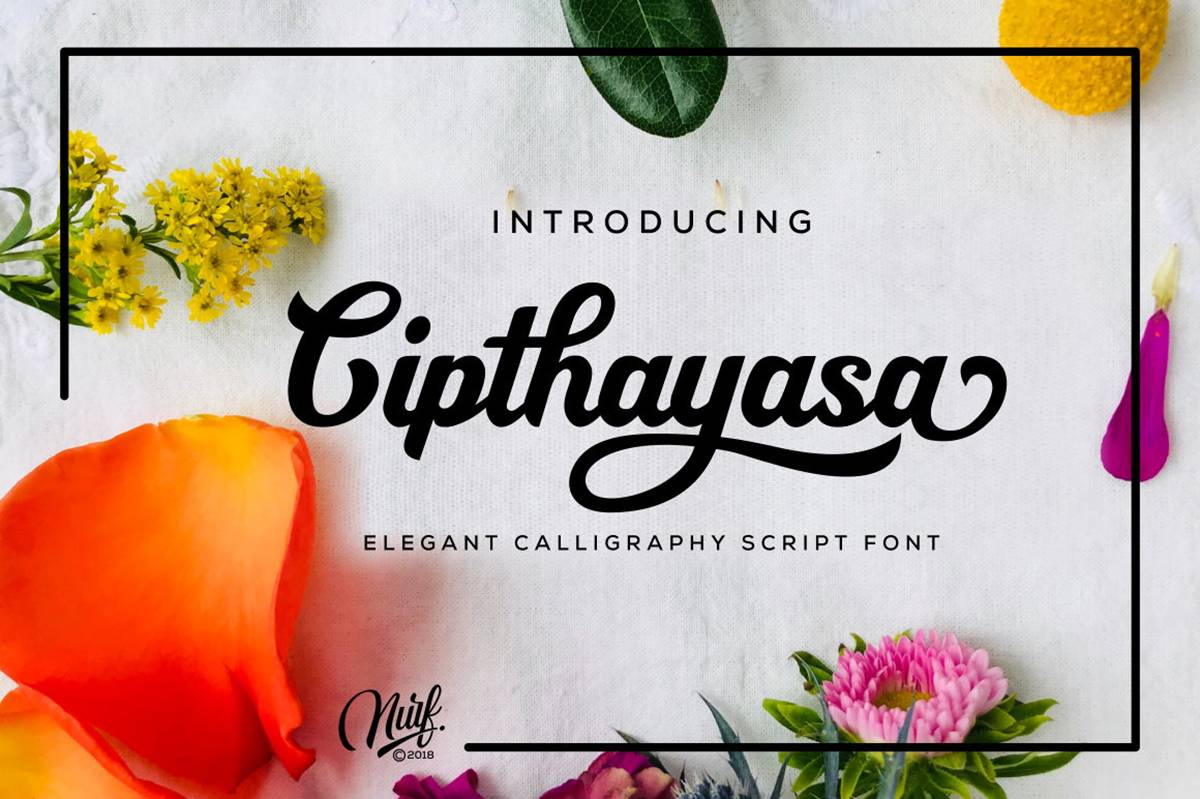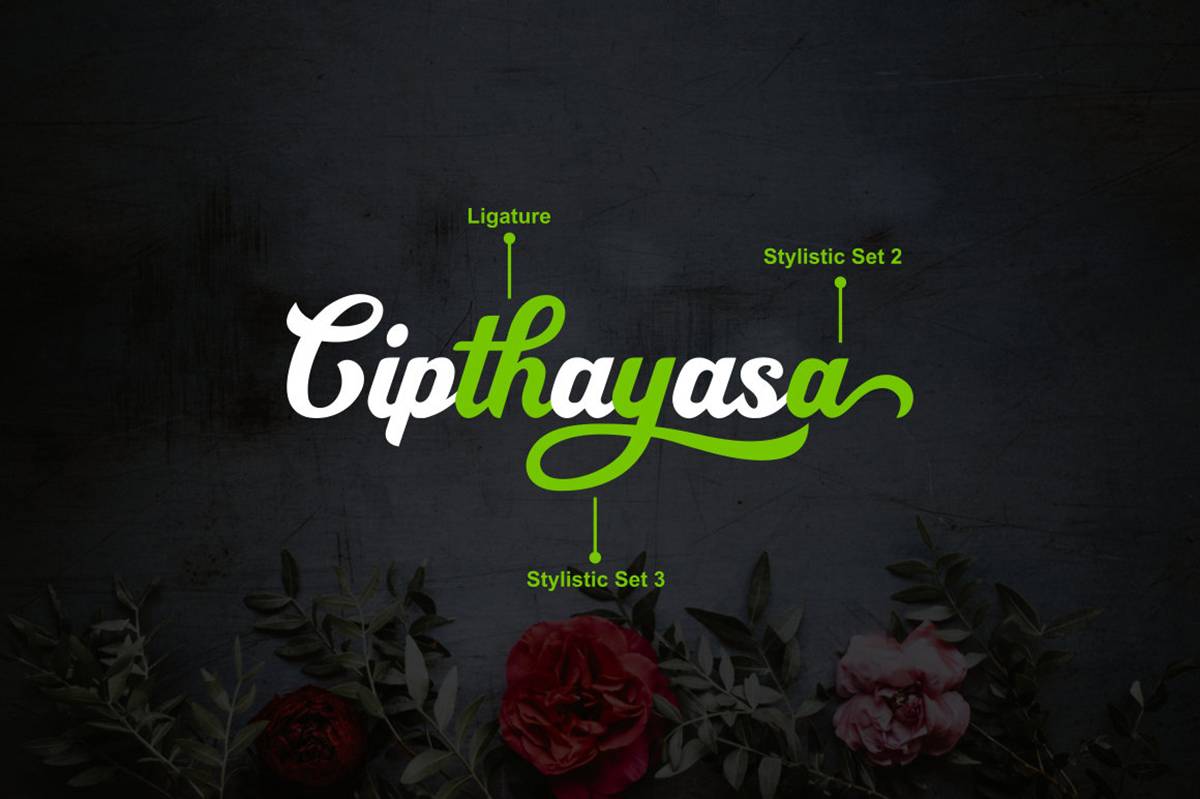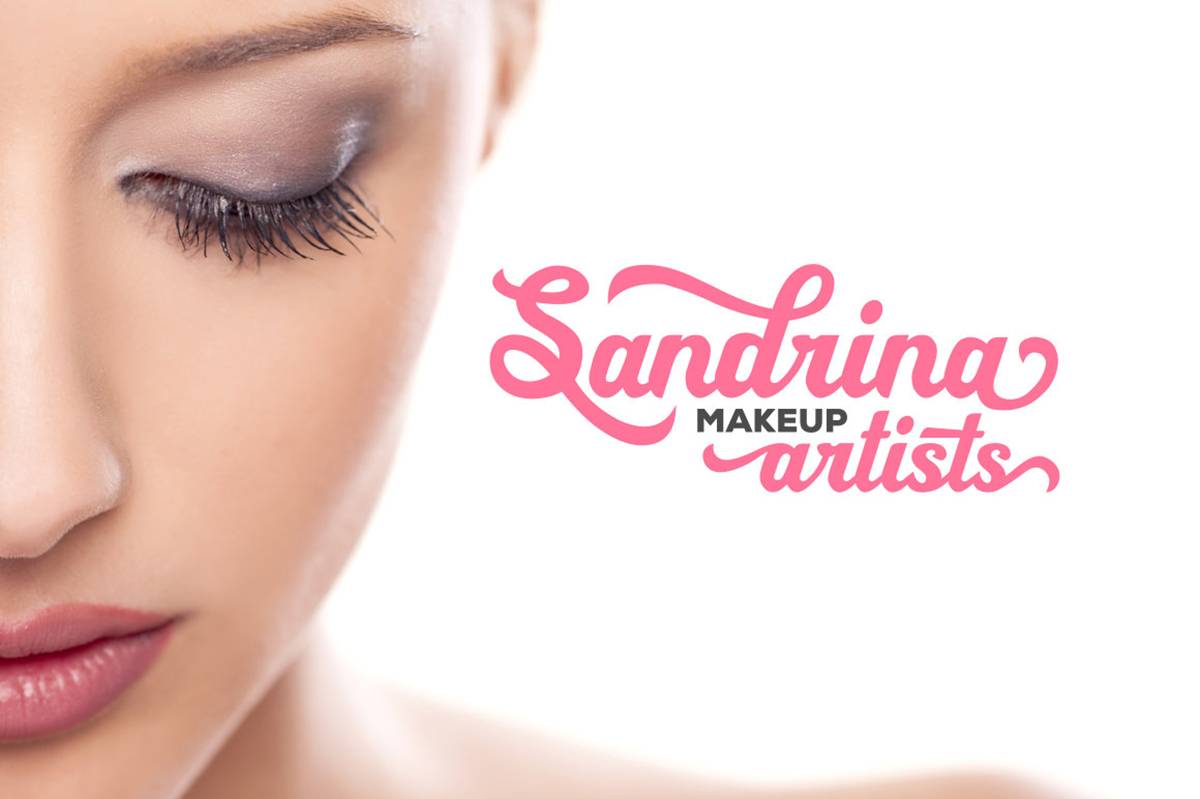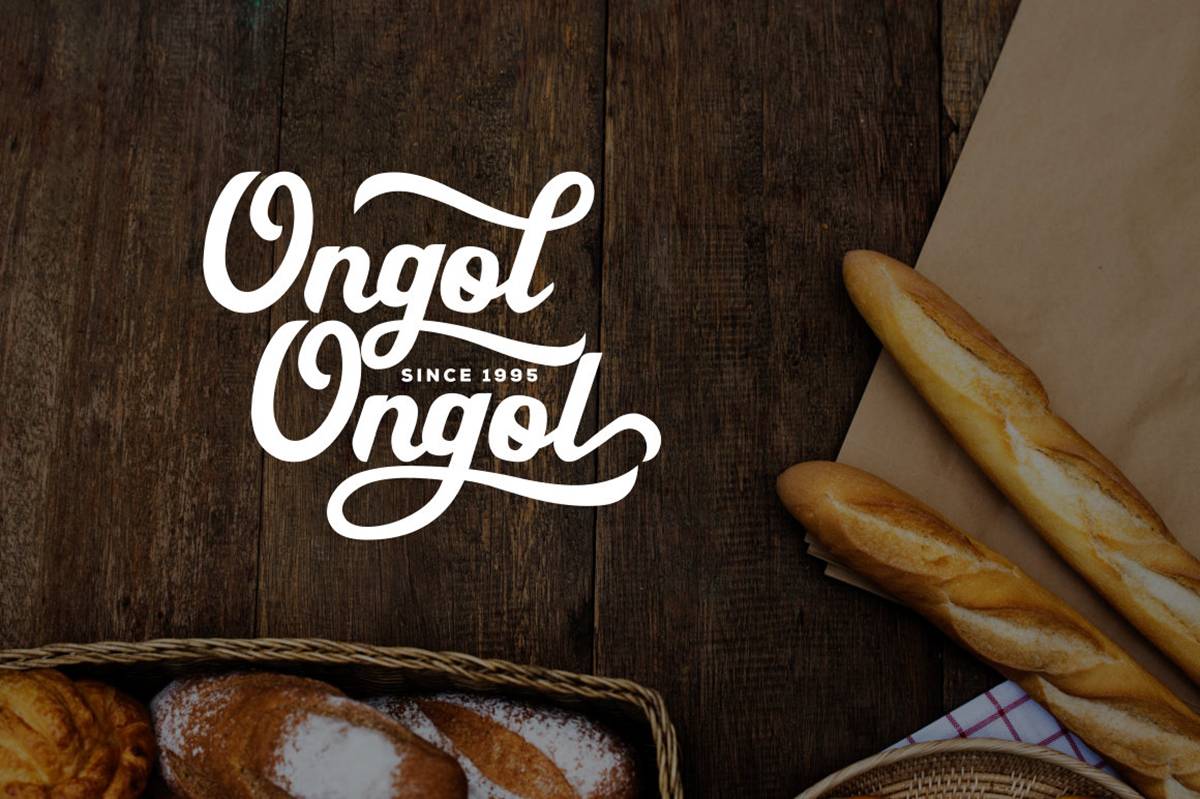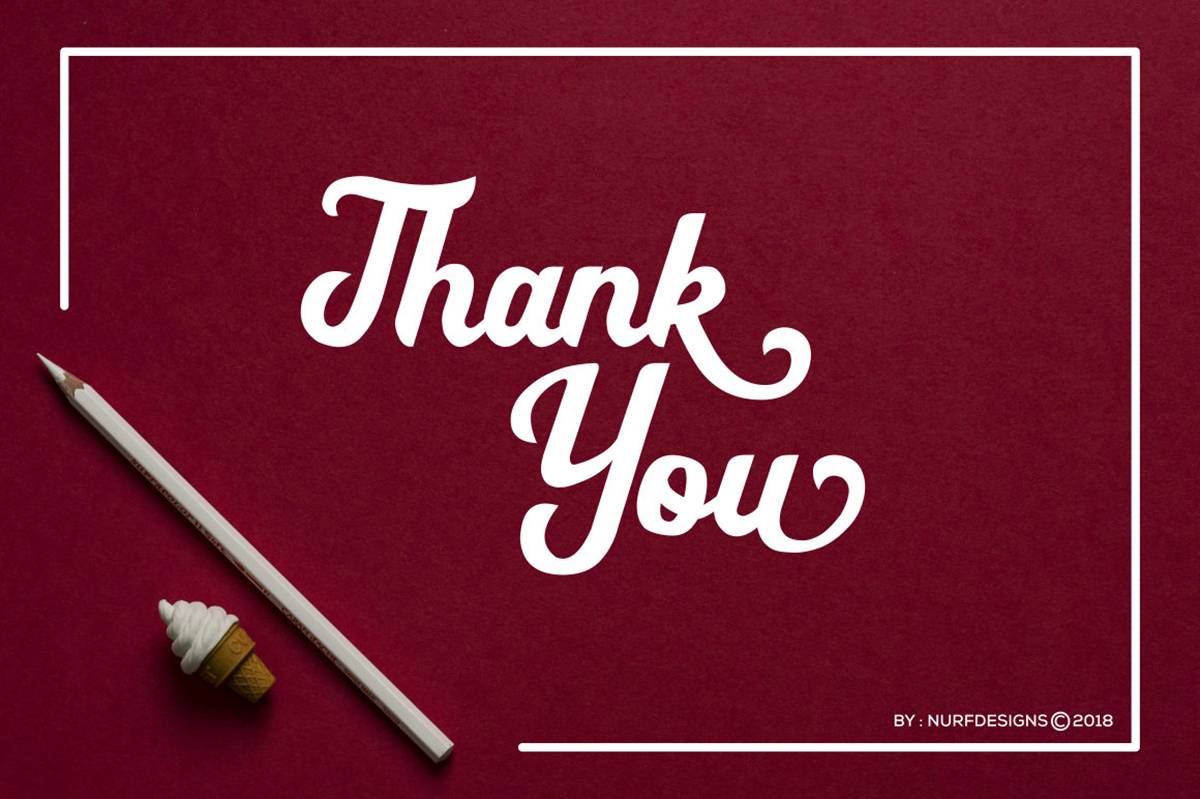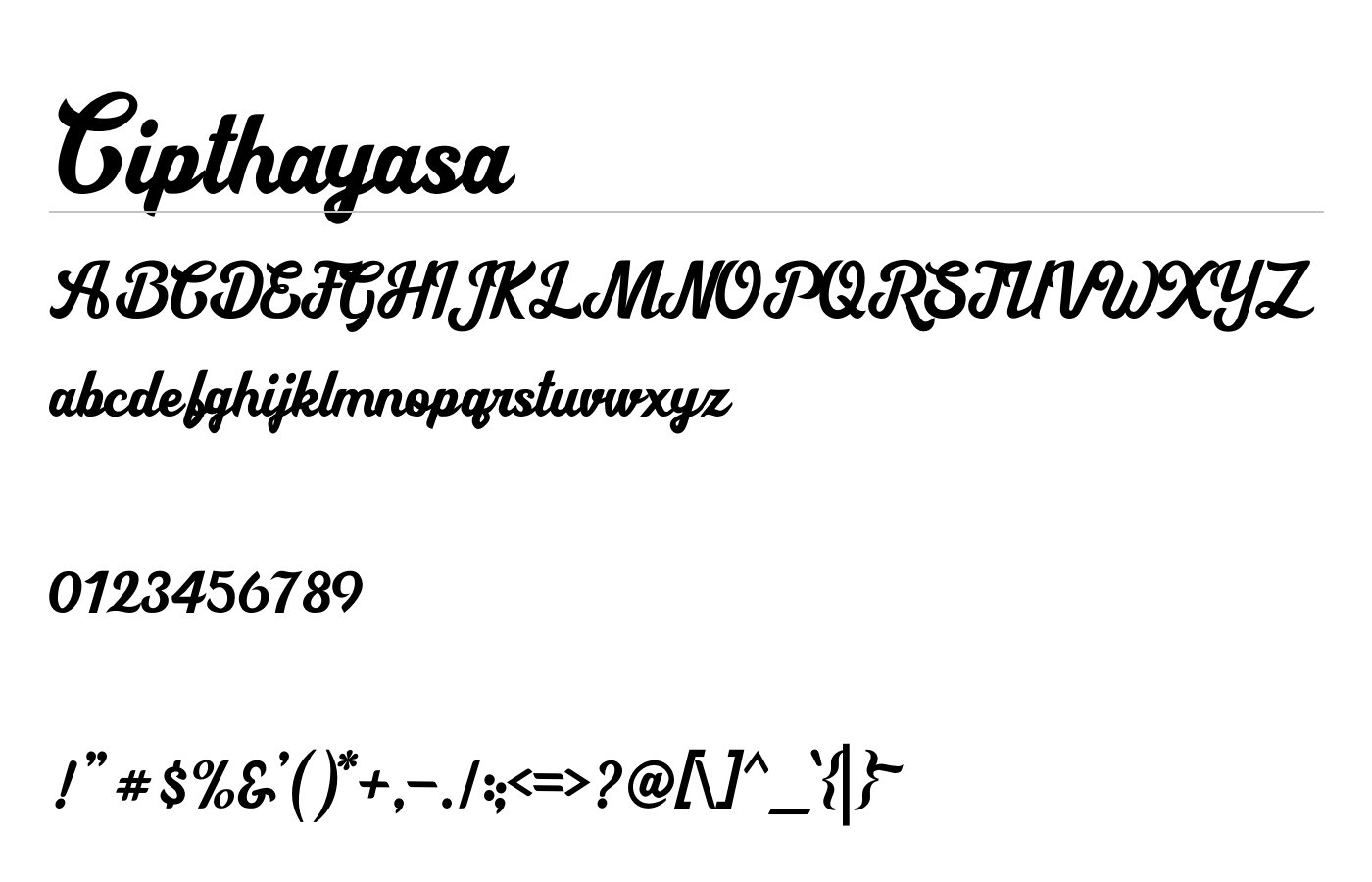
Cipthayasa is a bold, cursive script font with a confident, smooth flow that combines modern elegance with a touch of vintage charm. Its thick strokes and slightly condensed letterforms make it ideal for logos, headlines, and branding that require a strong yet playful personality. This font shines in creative and fashion contexts where a stylish, eye-catching look is desired.
Cipthayasa Font
About Cipthayasa Font
| Font family | Cipthayasa Font |
| Designer | Nurf Designs |